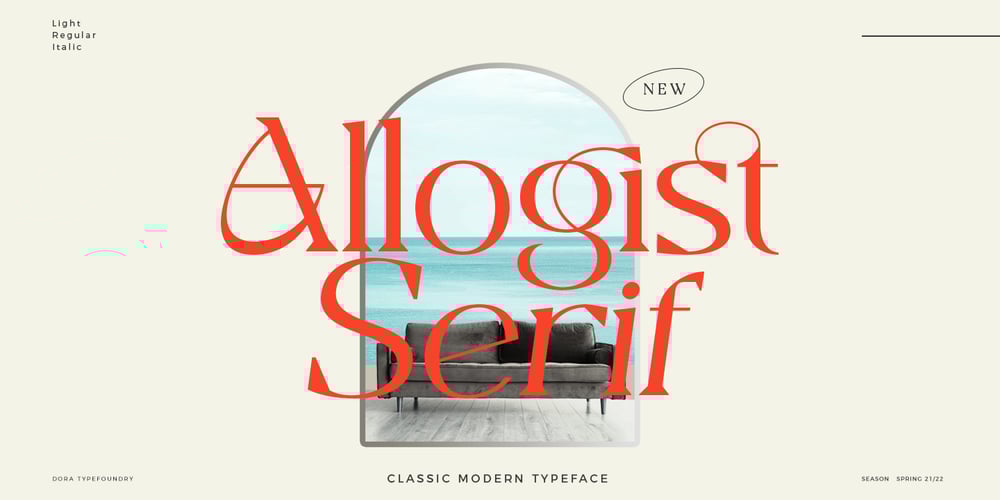
Allogist Font Family was designed by Zahratul Laila and published by Dora Typefoundry. Allogist contains 3 styles and family package options. Introducing Elegant Serif FontAllogist is a new elegant serif font that will add a touch of luxury and sharp diamond dots add a slick yet legible Persian style. This versatile font is Perfect for editorial projects, magazine headers, Logo designs, Clothing Branding, product packaging, and showcases masculine and feminine qualities.Allogist is equipped with uppercase, lowercase, numbers and full punctuation + Multi language support and PUA-encode.To activate the OpenType Stylistic alternative, you need a program that supports OpenType features such as Adobe Illustrator CS, Adobe Indesign & CorelDraw X6-X7, Microsoft Word 2010 or a later version.Features:• 3 Font weight• Uppercase & Lowercase letters• Alternative & Ligature Styles• Numbers & Punctuation• Characters with accents• Supports Multiple LanguagesThis type of family has become a work of true love, making it as easy and enjoyable as possible.I really hope you enjoy it!